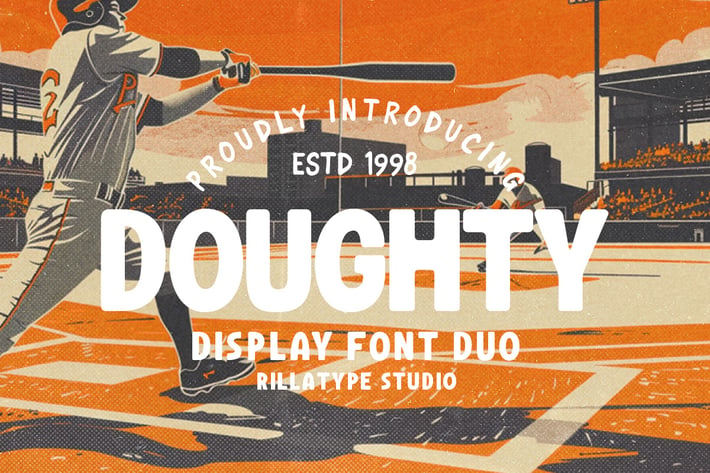
Doughty Font Duo
Rillatype
Introducing Doughty, a captivating display font duo designed to elevate your projects with its distinct charm. Consisting of two complementary fonts, Doughty One and Doughty Two, this duo offers versatility and style for a variety of design endeavors. Whether you're crafting posters, branding materials, or headlines, Doughty adds a touch of sophistication and personality to your creations. With its sleek lines and contemporary flair, Doughty is the perfect choice for making your designs stand out.